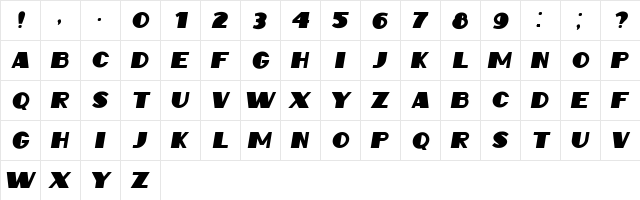
Intransitive Italic
Design Context for Intransitive Typeface
Intransitive takes a measured approach to typography — its balanced proportions and neutral character make it a reliable workhorse for both digital and print work. Its italic angle brings a sense of urgency and motion to the letterforms.
Pro Tip: Try Intransitive for annotation and caption copy alongside an upright companion — the contrast in angle creates a dynamic but ordered typographic system.